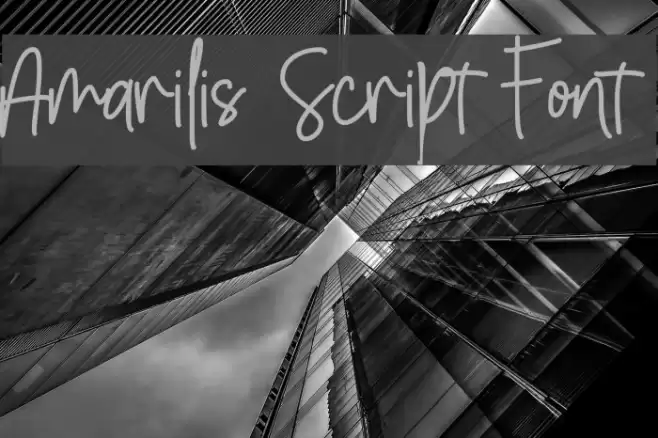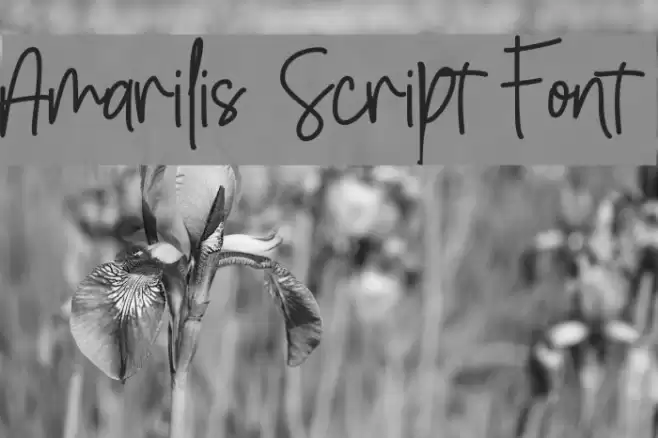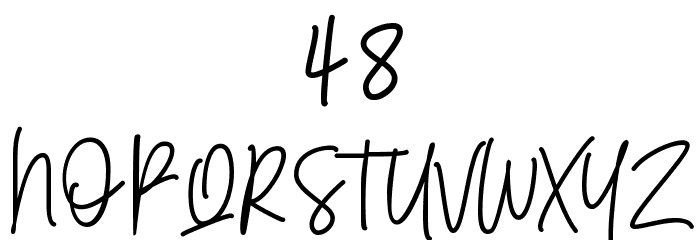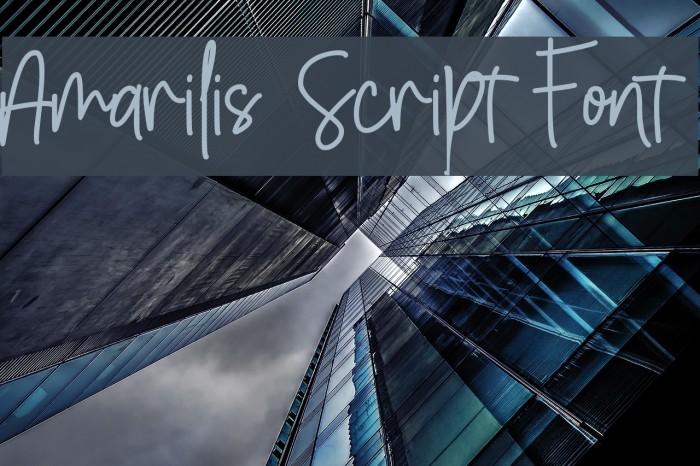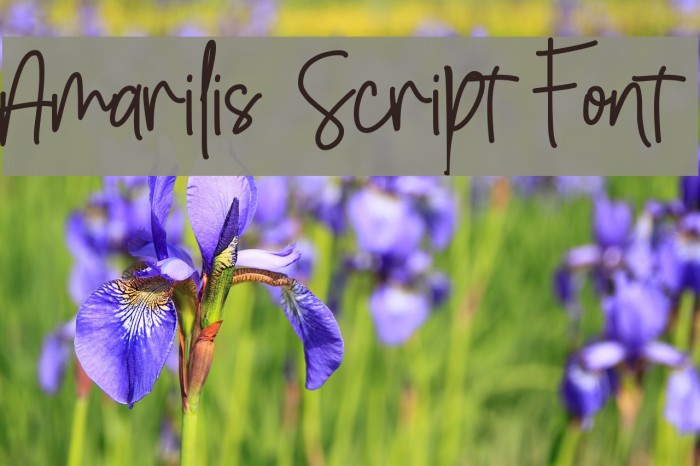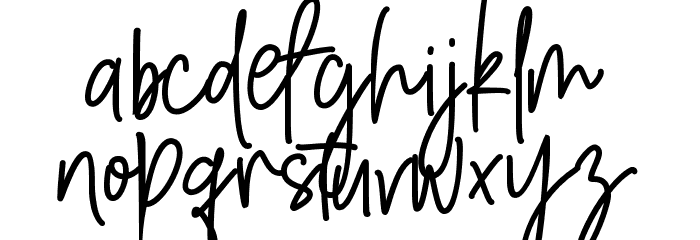
Amarilis Script Font Description
This script font features a lively and flowing handwritten style, characterized by its elongated and slightly irregular letterforms. The strokes are smooth and fluid, giving it an organic and personal touch. The uppercase letters are bold and expressive, while the lowercase letters maintain a consistent rhythm, enhancing readability. The font includes a full set of numerals and a selection of special characters, making it versatile for various design needs. Its playful yet elegant appearance makes it suitable for creative projects that require a personal and artistic flair.
A lively, flowing handwritten script font with smooth, elongated letterforms from Uncategorized fonts.
- Proposed Projects: Ideal for wedding invitations, greeting cards, branding, and social media graphics.
- Use Case: Logos, Headlines, Invitations